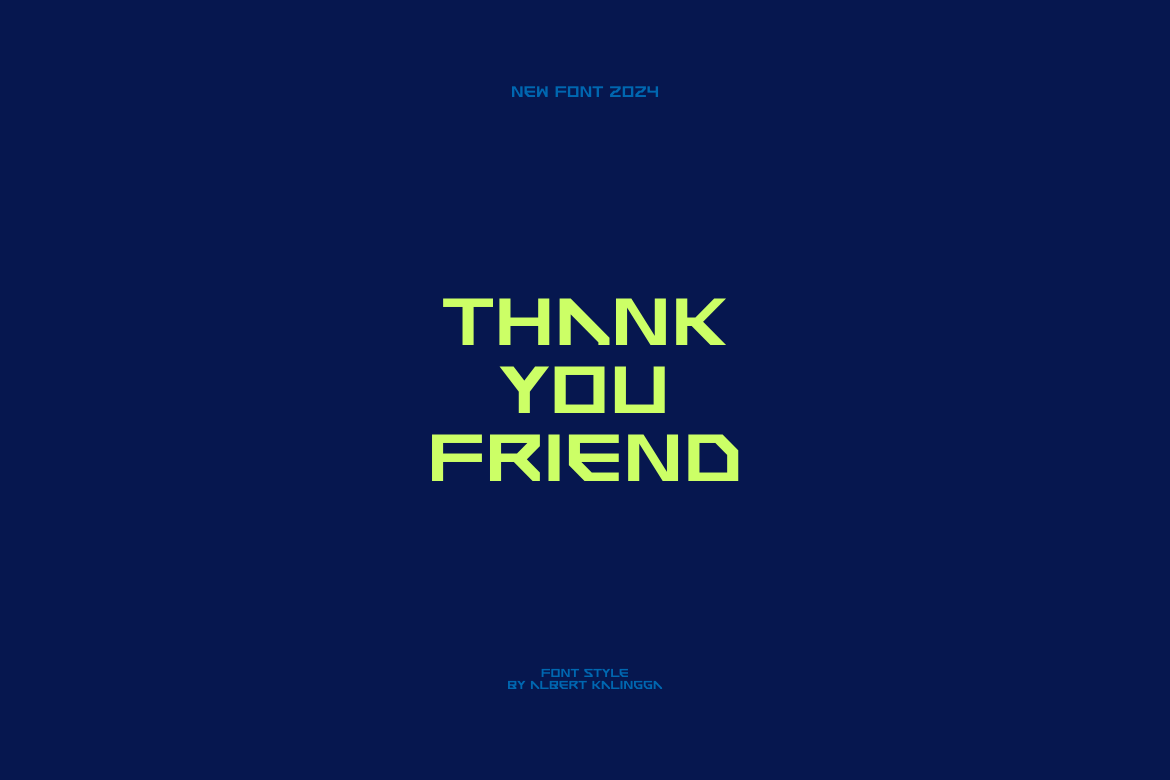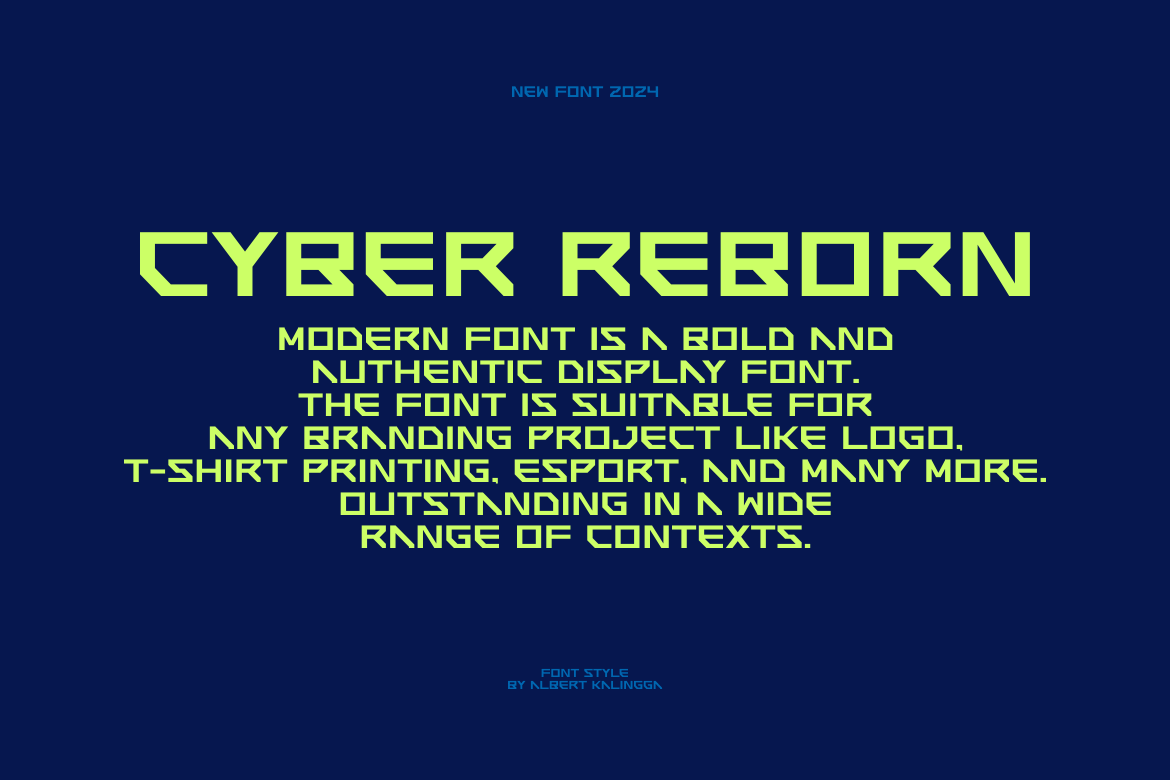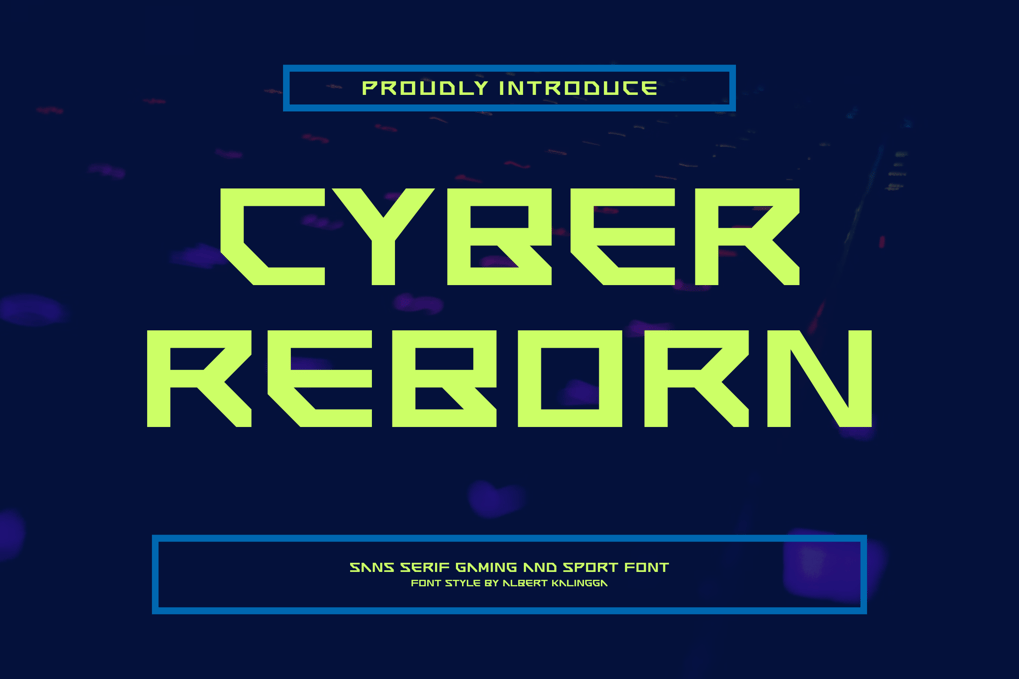
Cyber Reborn Font
Cyber Reborn Font – Modern Font is a bold and authentic display font. The font is suitable for any branding project like logo, esport, and many more. outstanding in a wide range of contexts.